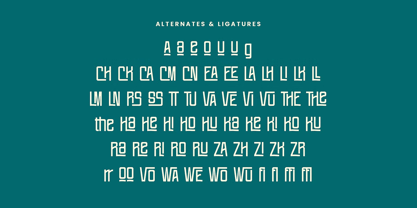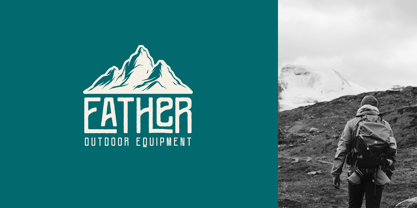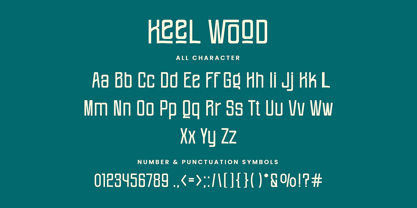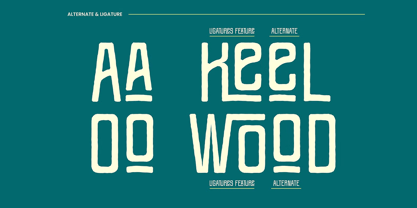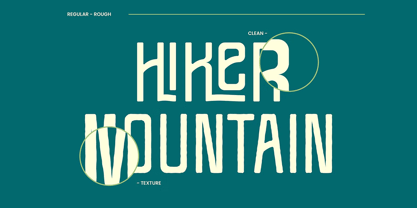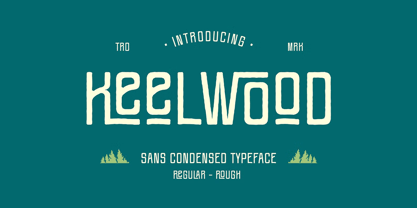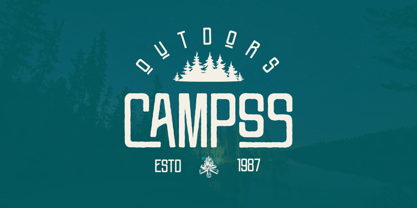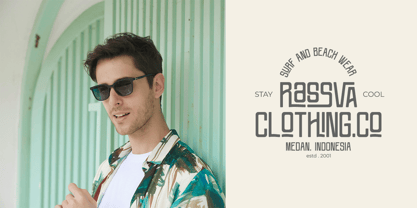
Keel Wood
The Keel Wood Font Family was designed by Muhammad Hidayat and published by AQR Studio. Keel Wood contains 2 styles and family package options. More about this family
Keel Wood - Sans Condensed Font is manual lettering with a pencil. This font is a great combination for any product and business. Keel Wood - Sans Condensed Font is comfortable for vintage design, classic design, photography, branding design, T-shirts, and many more.